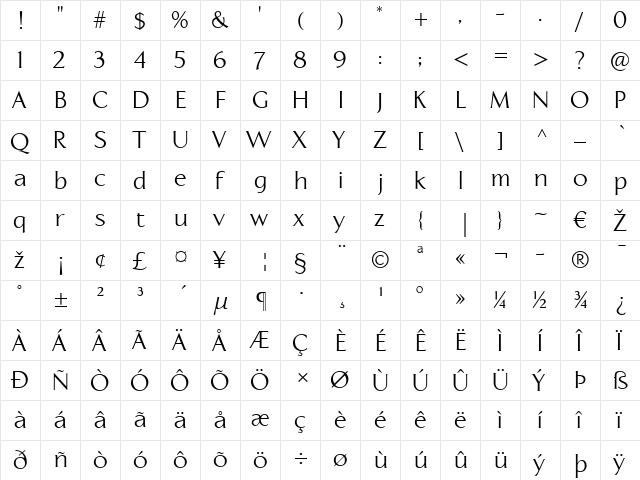
LTAperto Roman Regular
Design Context for LTAperto Roman Typeface
LTAperto Roman is a composed and adaptable typeface that performs quietly and consistently across a wide range of design contexts.